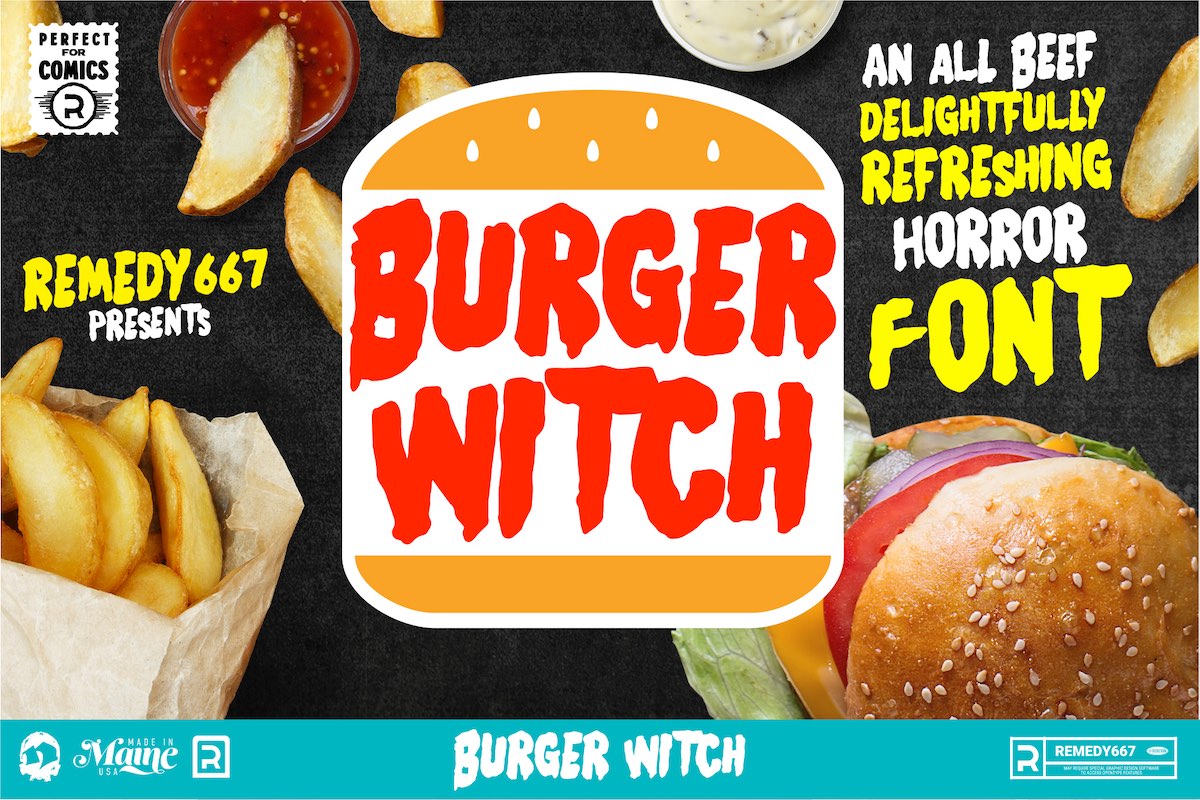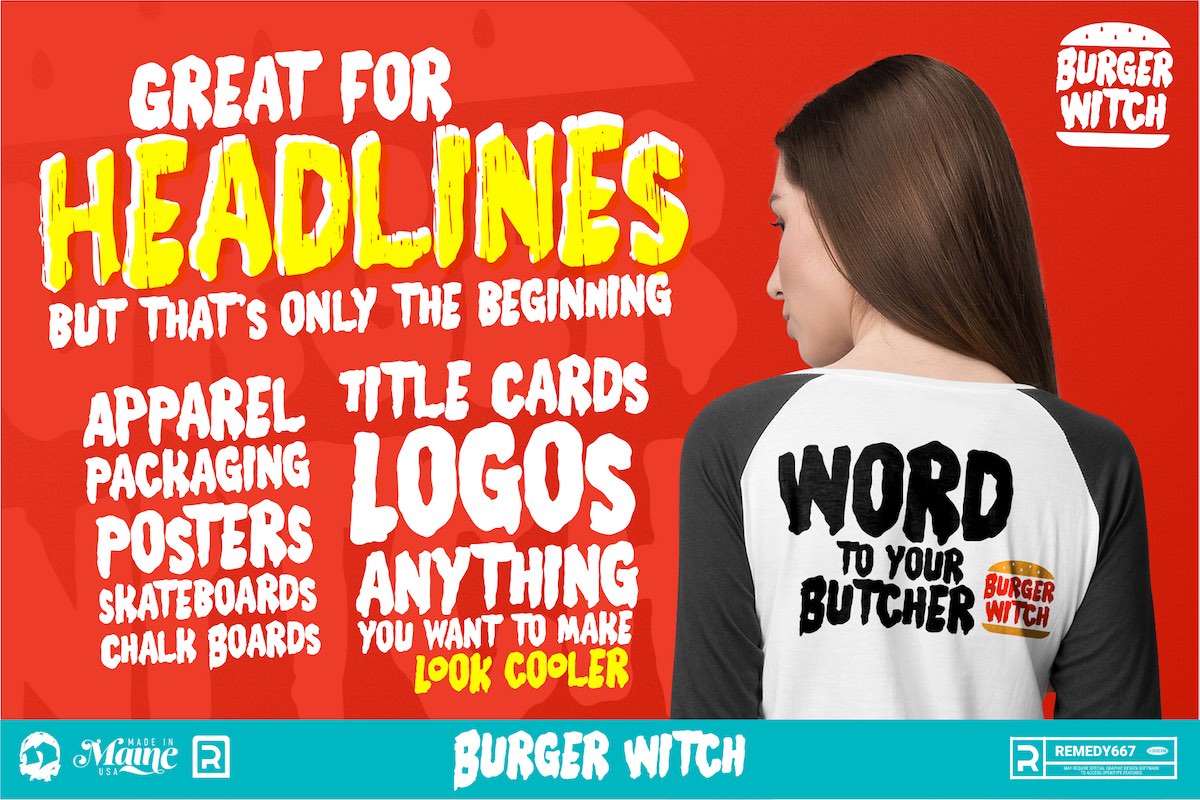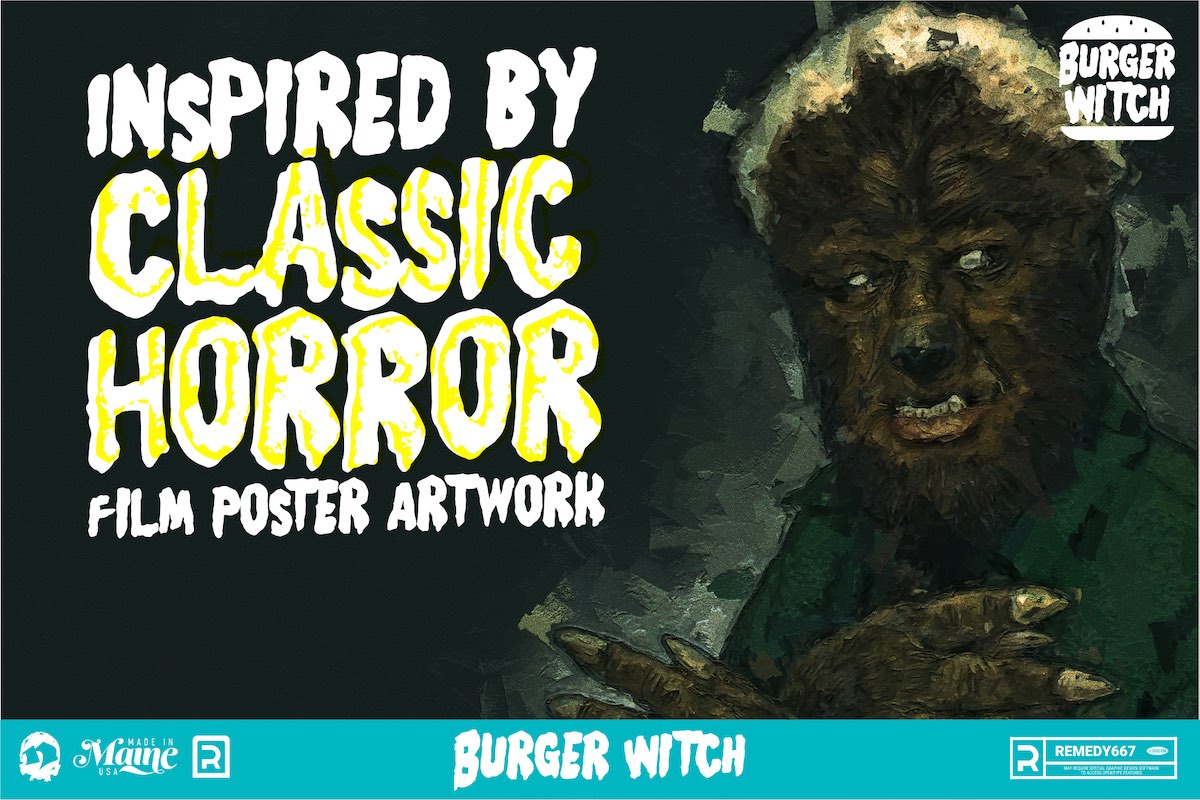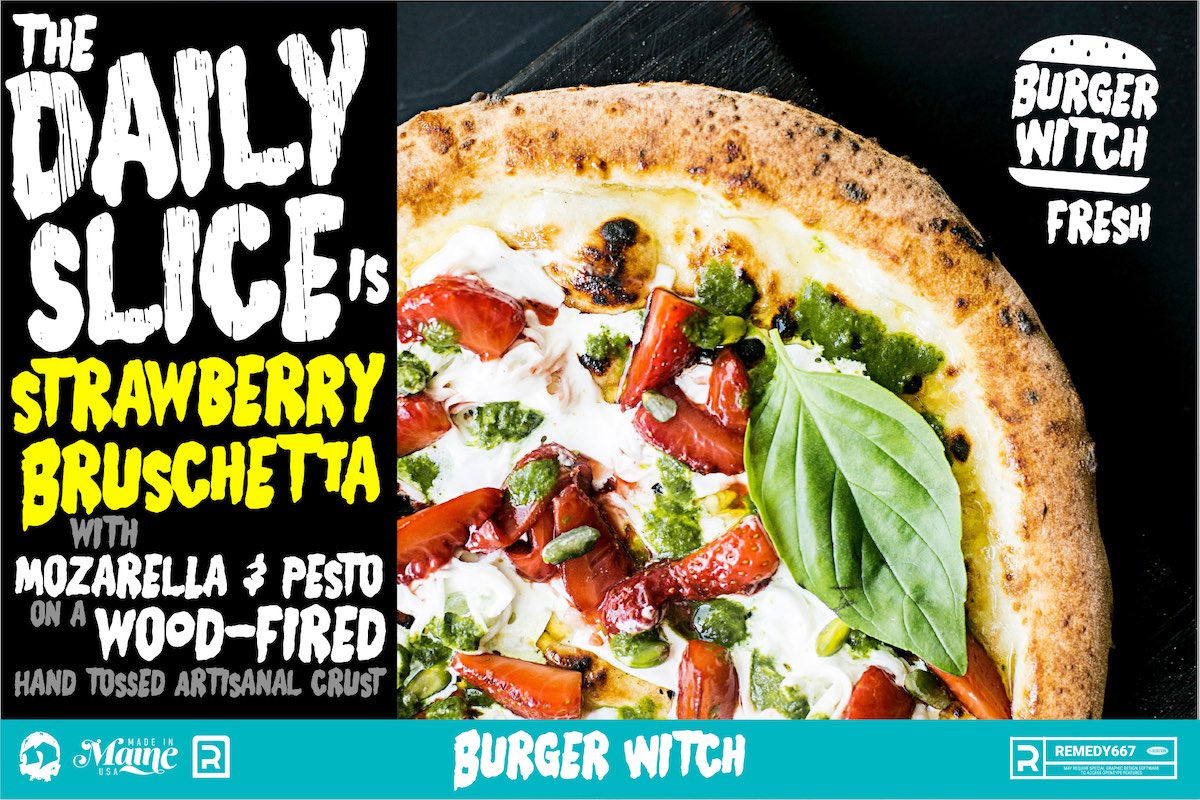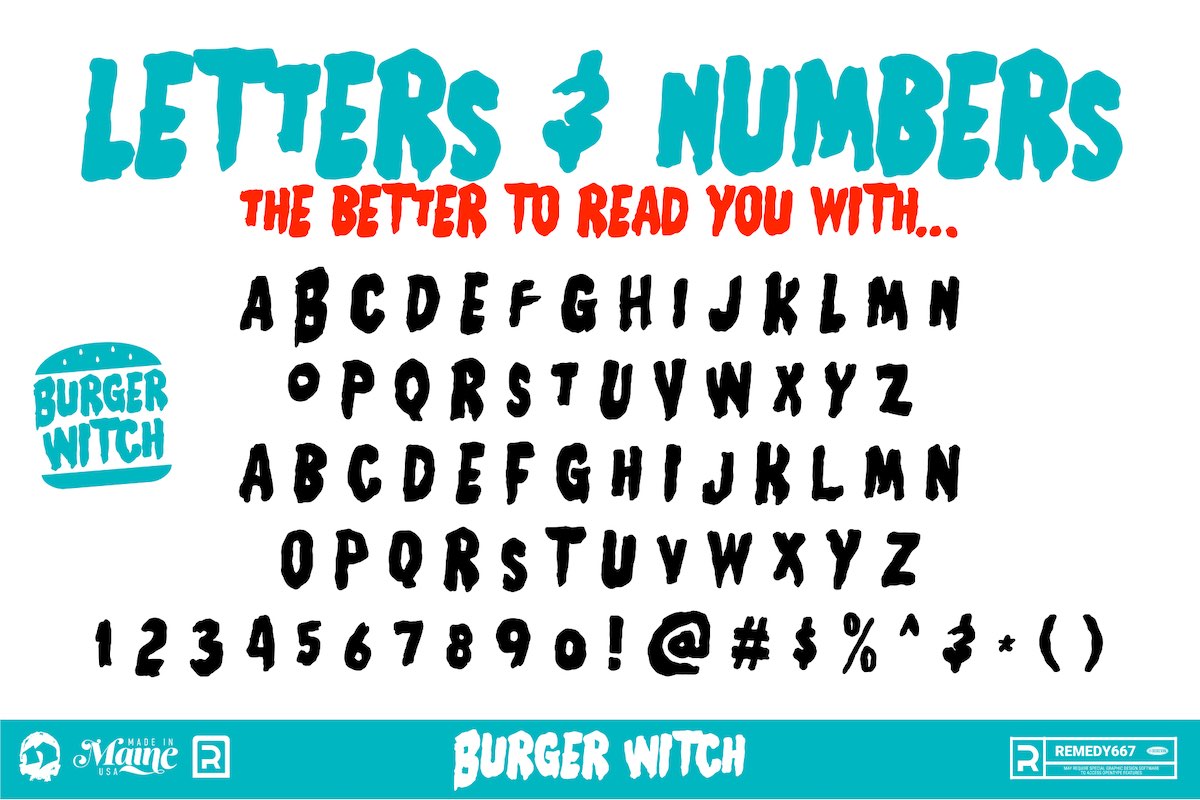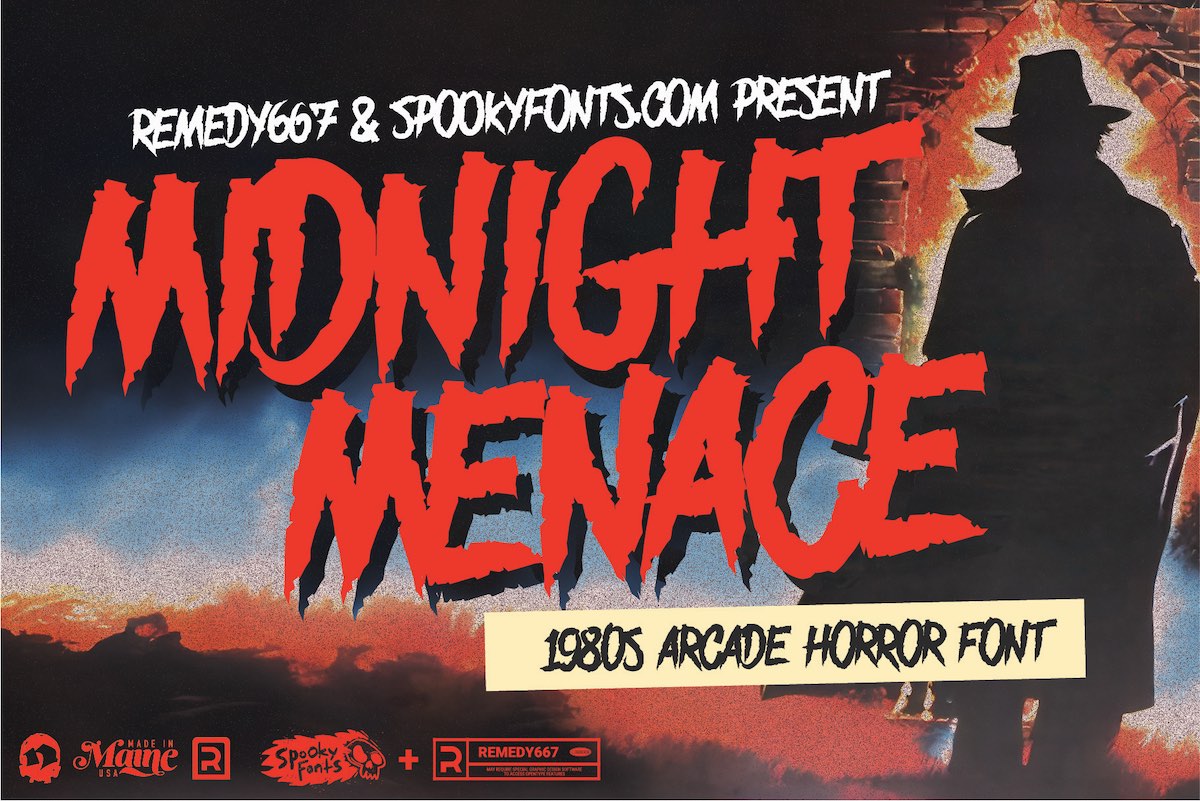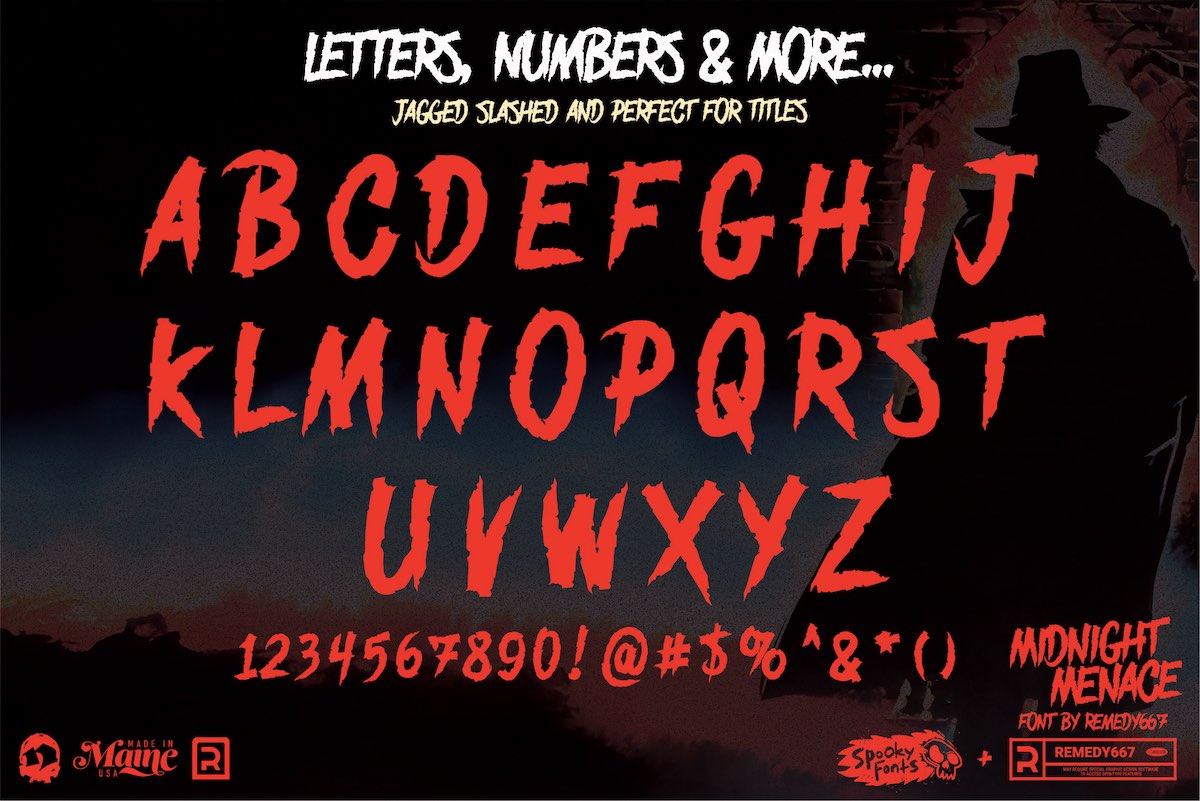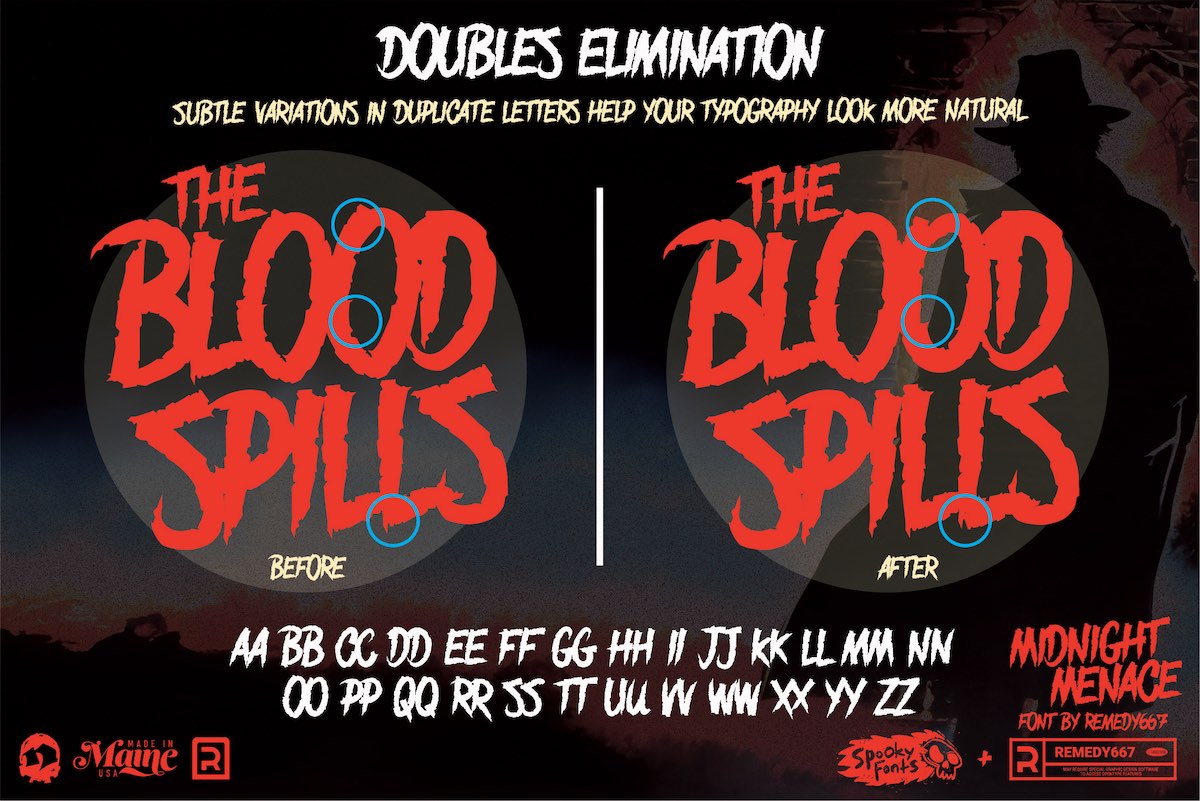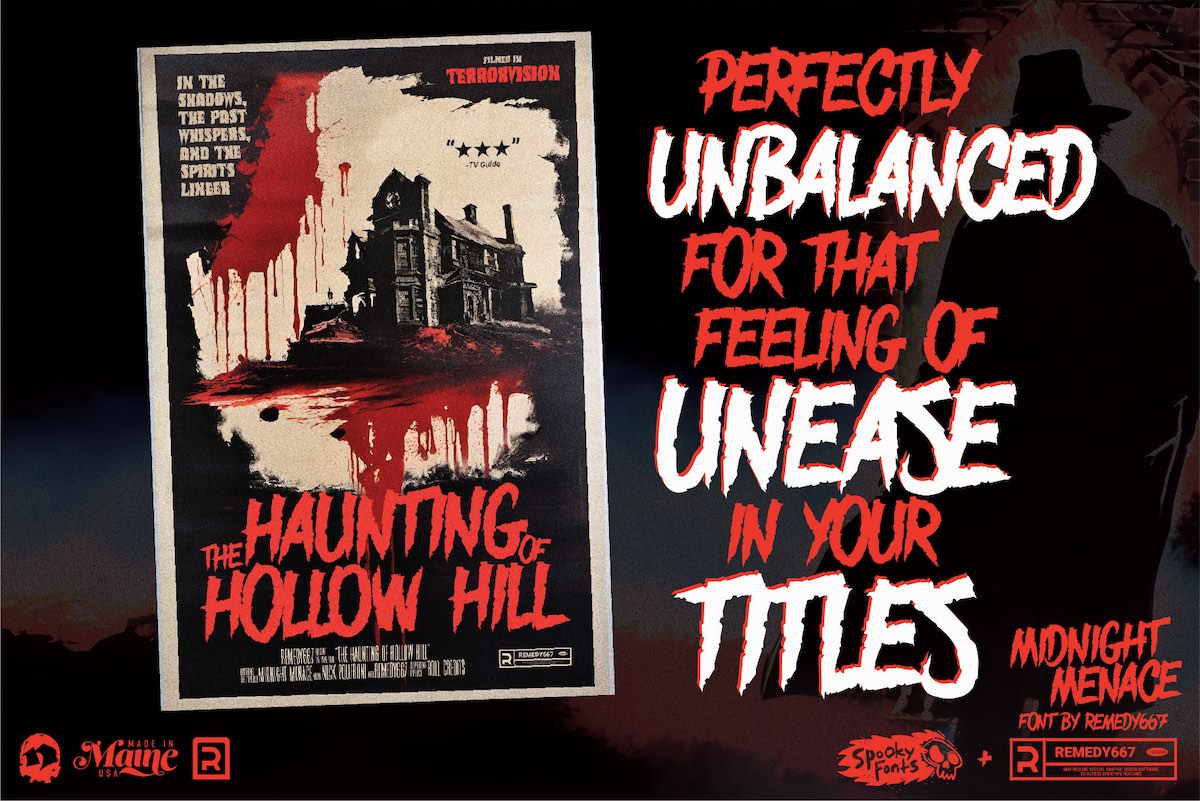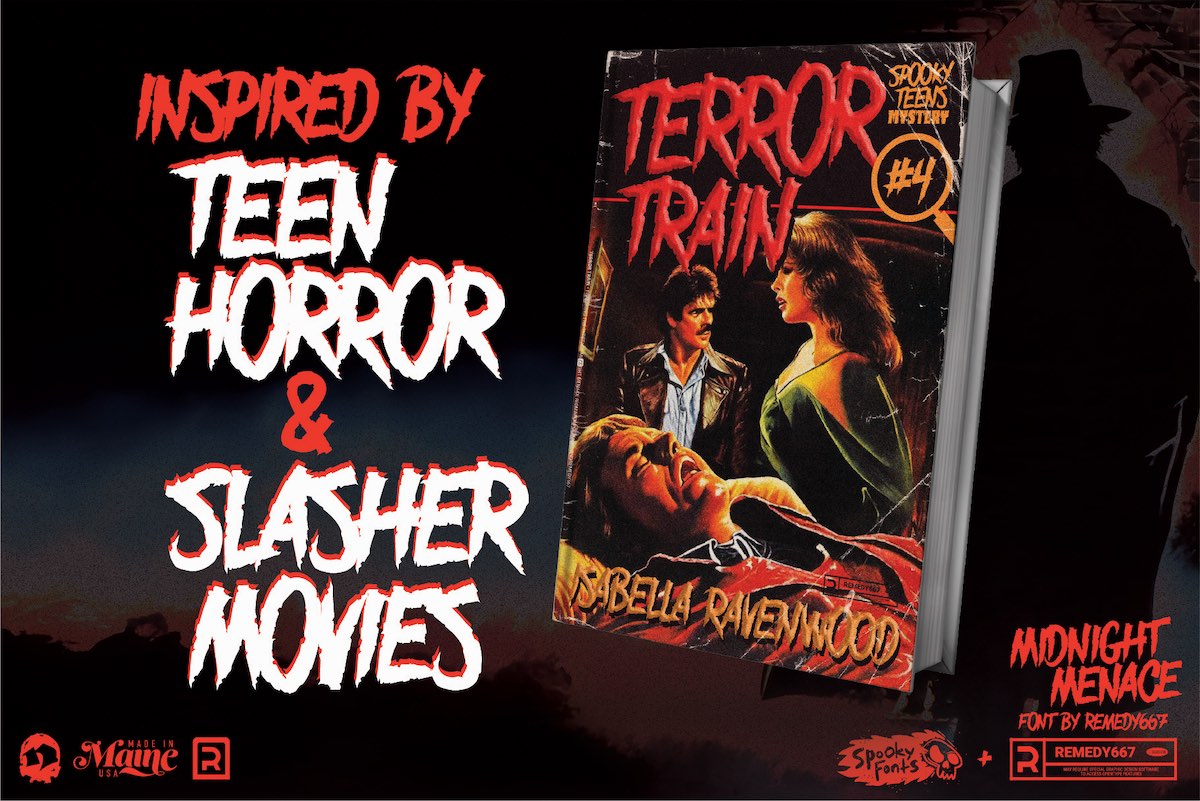
Satanic Panic Font Bundle
The Satanic Panic Font Bundle is a twisted typographic time capsule packed with nine fonts that capture the hysterical charm of 1980s horror, B-movies, and underground comics. Inspired by the golden age of VHS terror, this collection from Remedy667 drips with analog grit and supernatural flair.
These fonts were born from the fever-dream fears of the Satanic Panic era—when heavy metal records were blamed for summoning demons, and horror movies were accused of corrupting the youth. Each typeface is a love letter to the bizarre, the grotesque, and the thrillingly weird.
If you're designing horror posters, punk zines, slasher merch, or retro comic book art, this bundle is your gateway to the darkest corners of 1980s pulp culture.
• Includes 9 Fonts Inspired by Horror & B-Movies: Each font conjures a different subgenre, from occult slasher flicks to haunted house VHS covers.
• Crafted by Remedy667: Designed by an artist who lives and breathes horror aesthetics and underground type design.
• Authentic Analog Style: Grungy, warped letterforms full of texture and imperfection—perfect for vintage-inspired design.
• Ready for Print or Screen: Great for album art, social graphics, t-shirts, packaging, and more.
Each typeface in this bundle looks like it came from a forbidden movie trailer, a horror comic ad, or a lost cult classic. It's loud, it's weird, and it's undeniably wicked.
• Fonts Included: Burger Witch, Crocula, Dracula Vibes, Enchanted Chainsaws, Gore Girl, Midnight Menace, Shrieker, Tragro 2, Witch House